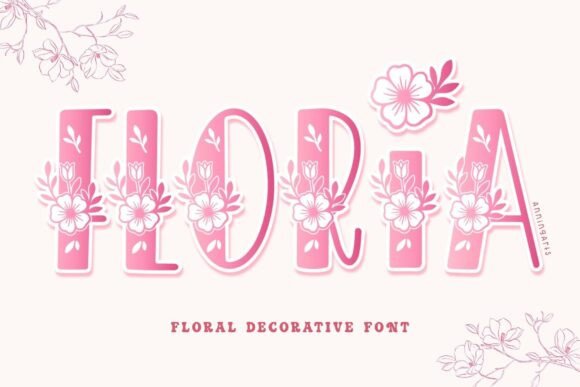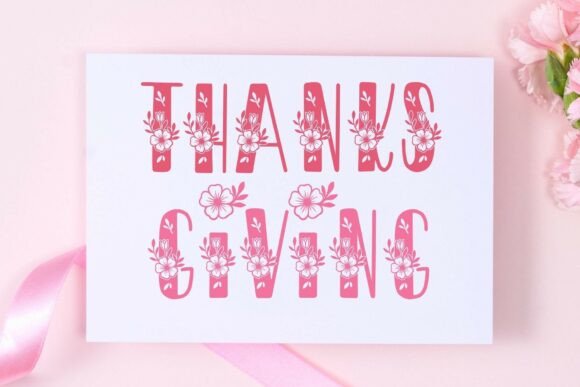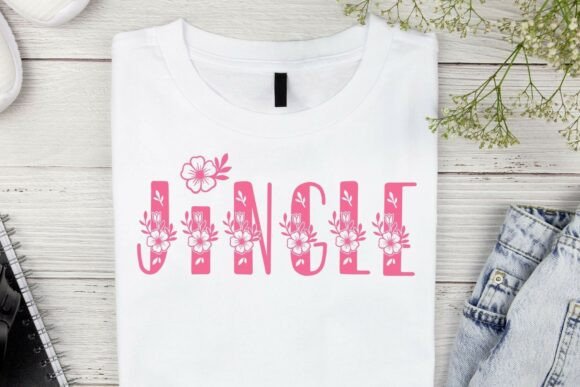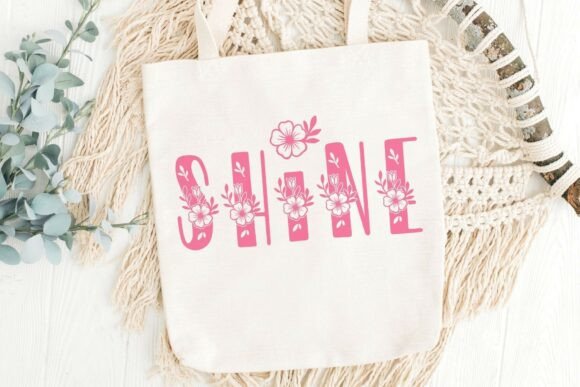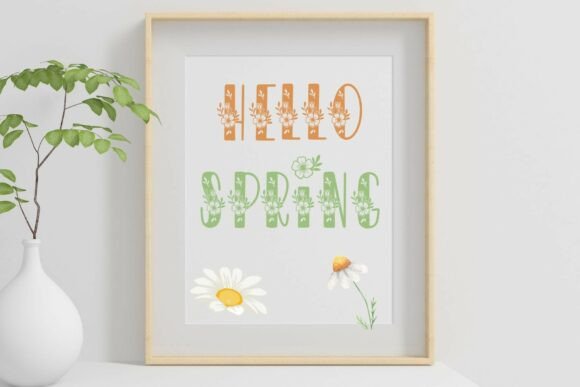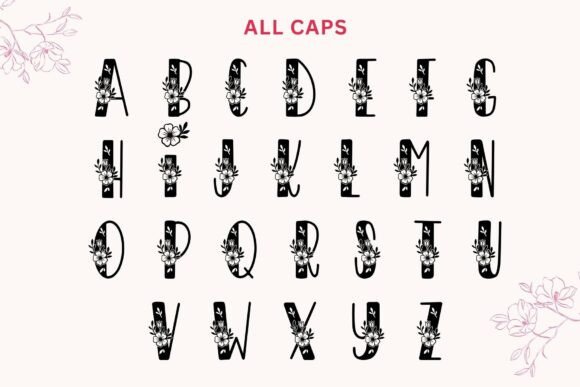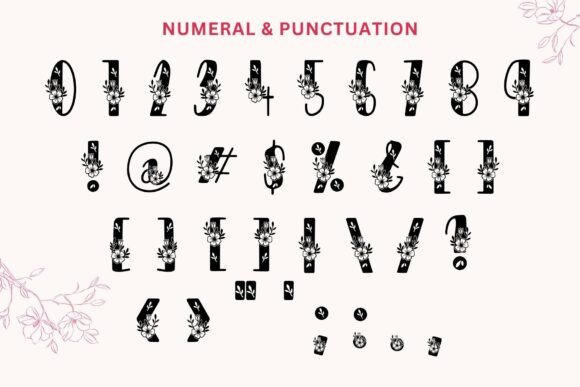
Floria Font
Floria Typeface is a stunning, floral decorative font that combines elegance and creativity in every letter. Designed in all caps, each character is beautifully adorned with intricate flower illustrations, making it perfect for monograms, wedding invitations, logos, and craft projects.
Whether you’re working on spring designs, greeting cards, t-shirts, tote bags, or home decor, Floria decorative font brings a fresh, botanical charm to your creations. It’s ideal for branding projects, seasonal events, and any design that needs a romantic and feminine touch.